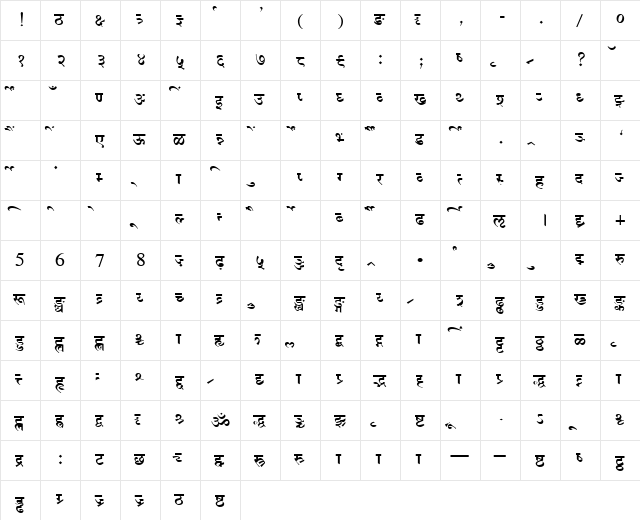
AkrutiDevSita Bold
Design Context for AkrutiDevSita Typeface
AkrutiDevSita is a composed and adaptable typeface that performs quietly and consistently across a wide range of design contexts. Its bold stroke weight gives it real presence on the page.